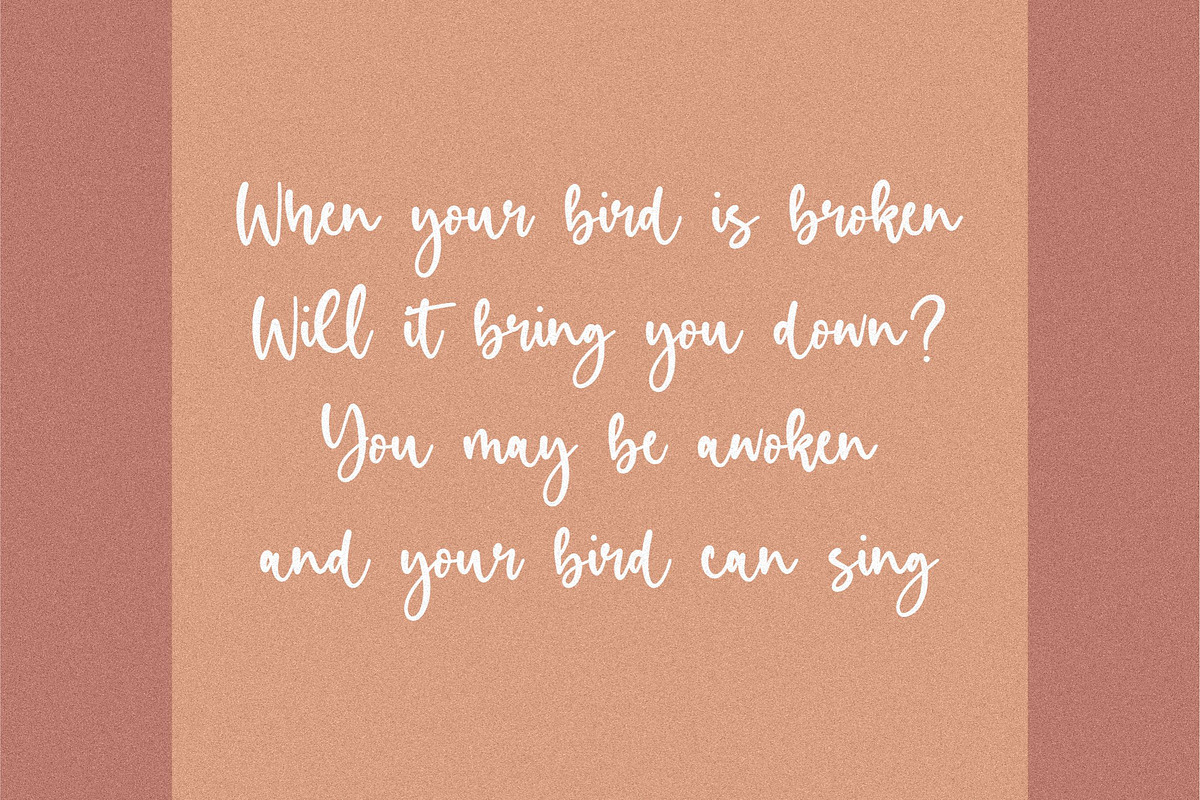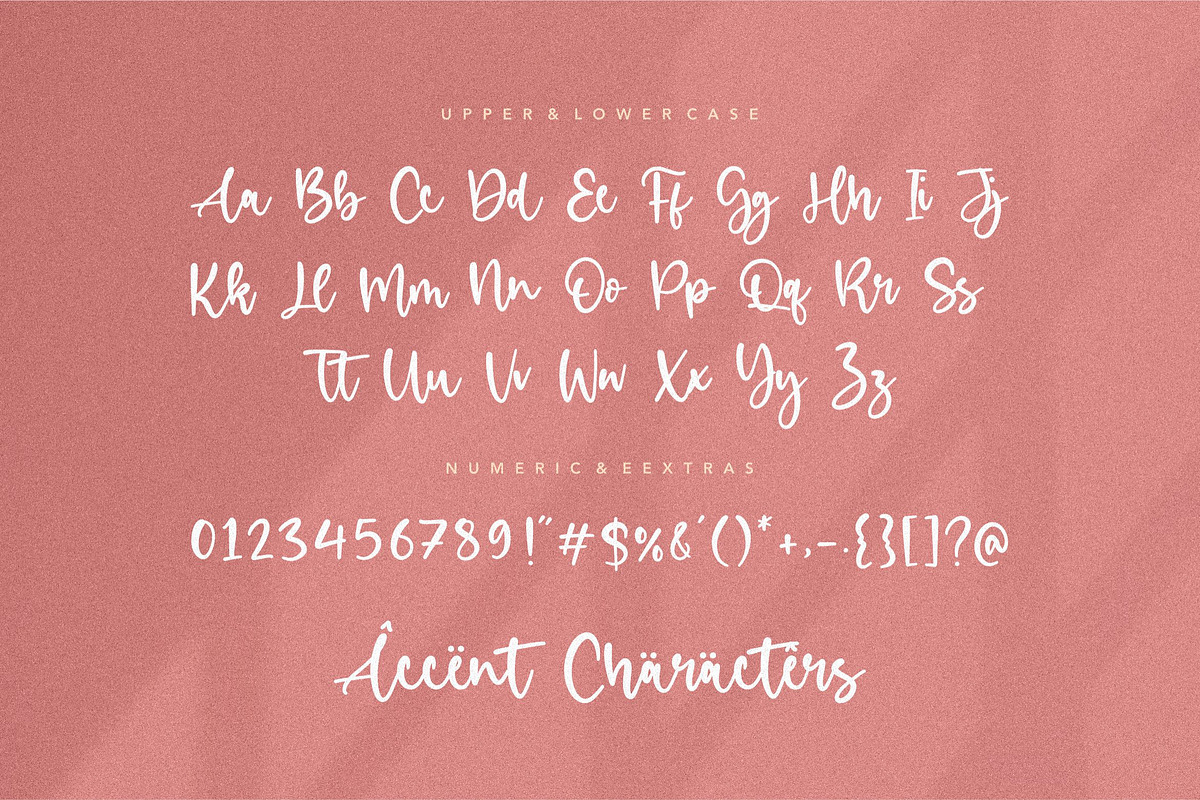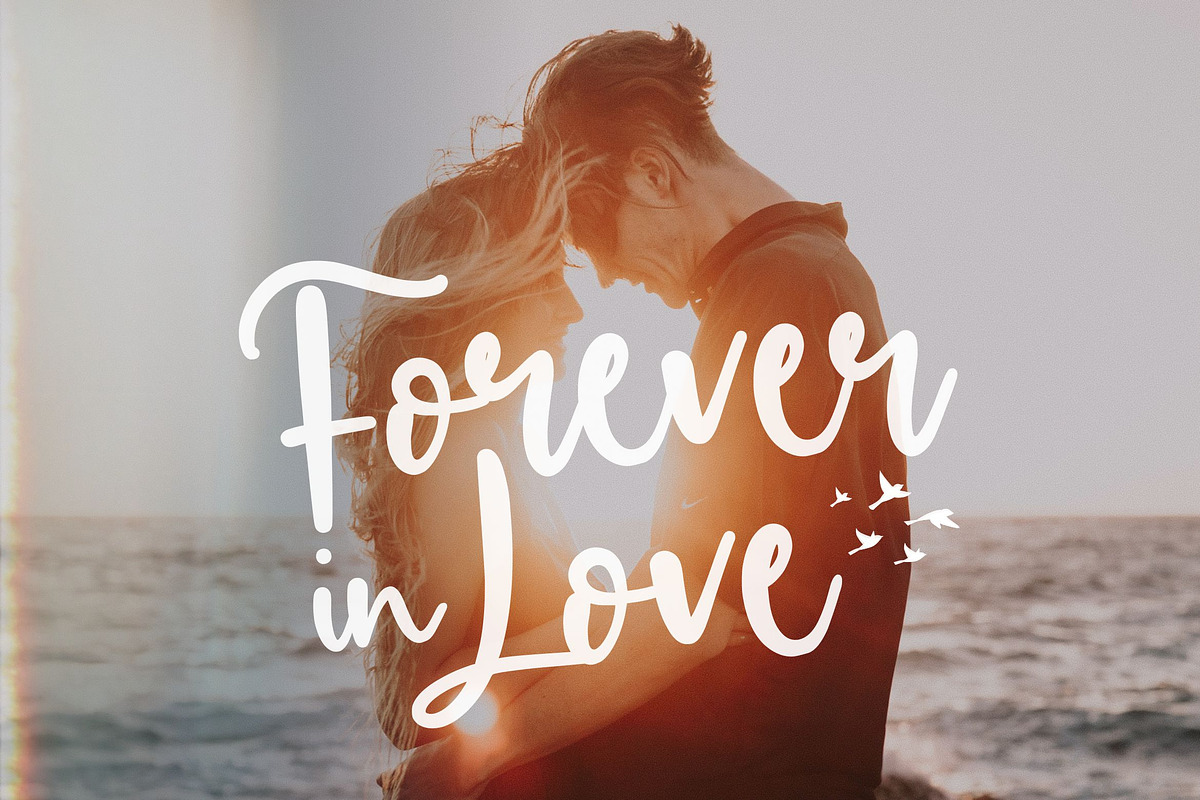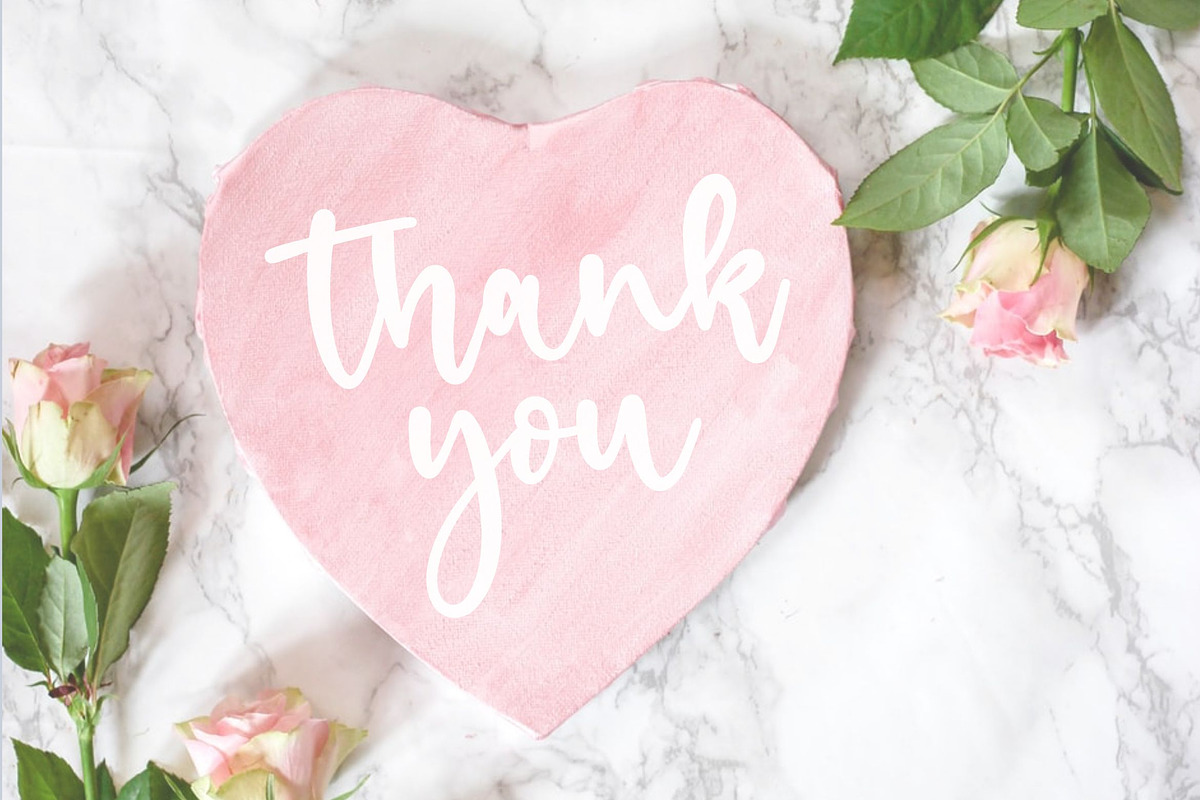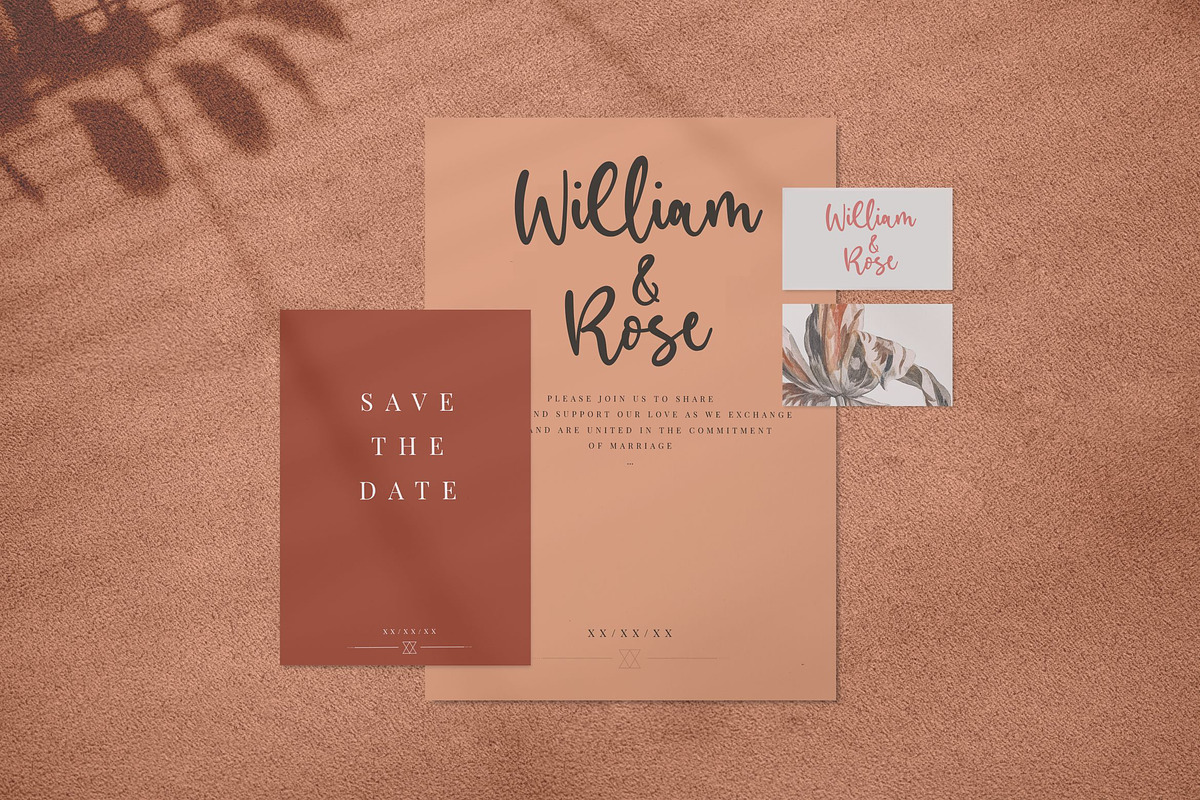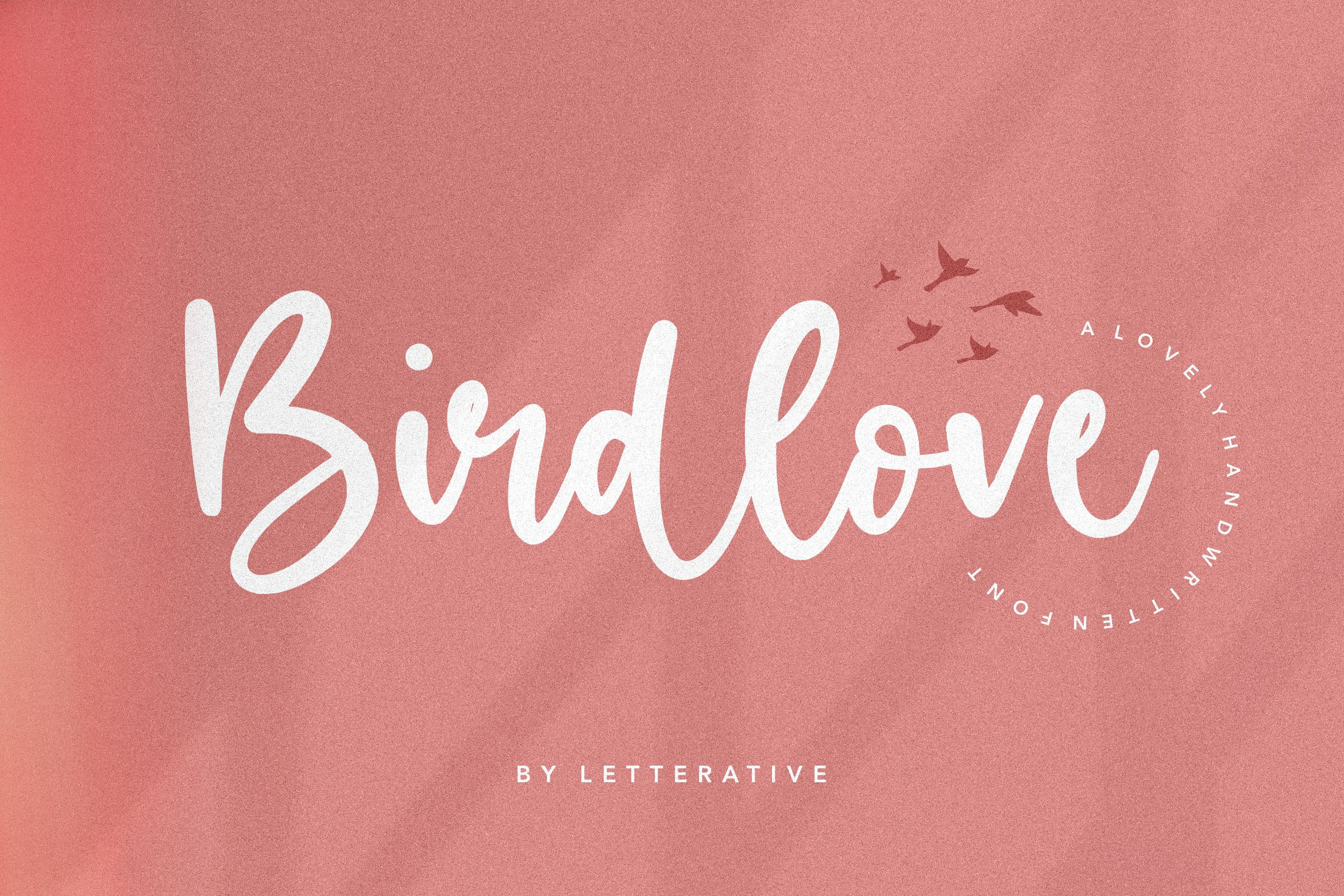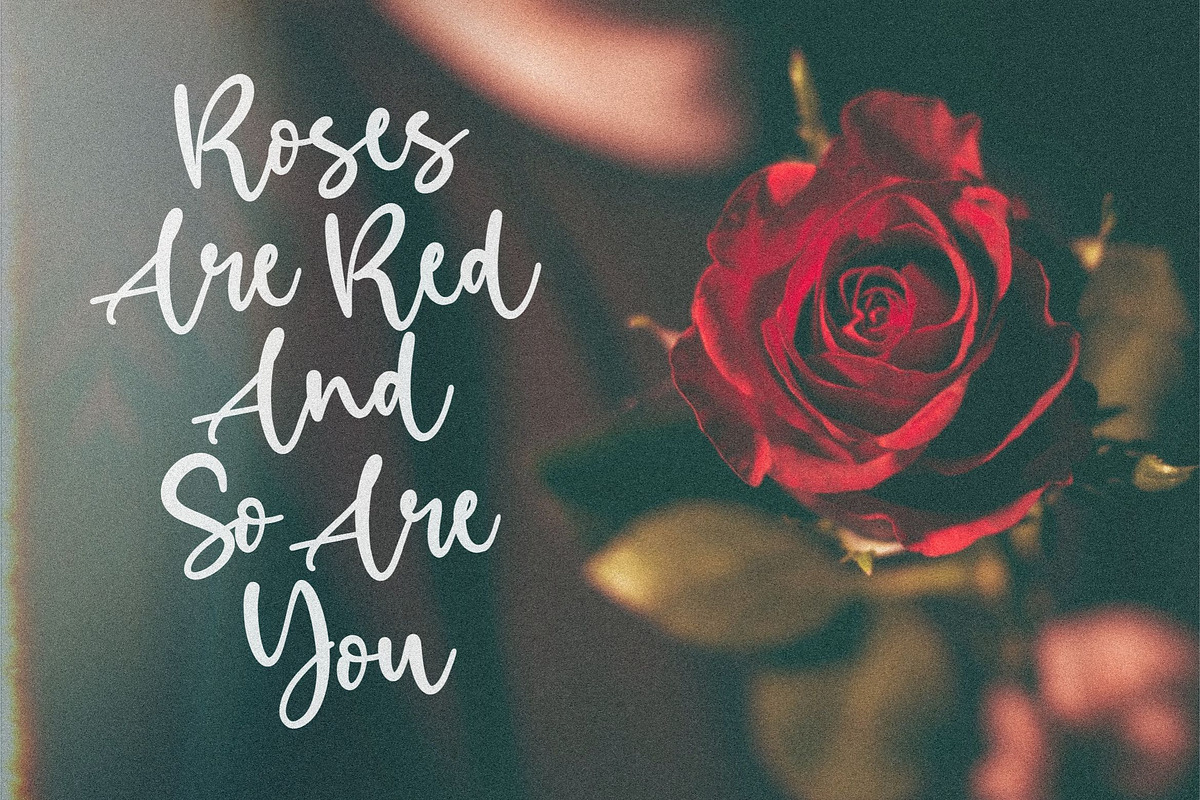
Birdlove - Handwritten Font
Introducing by Letterative Studio
Birdlove is a Lovely Handwritten Font
Birdlove is a flowing and elegant handwritten font. Sweet and lovely, this font will be ideal for each of the designs that need a dreamy, personalized touch.